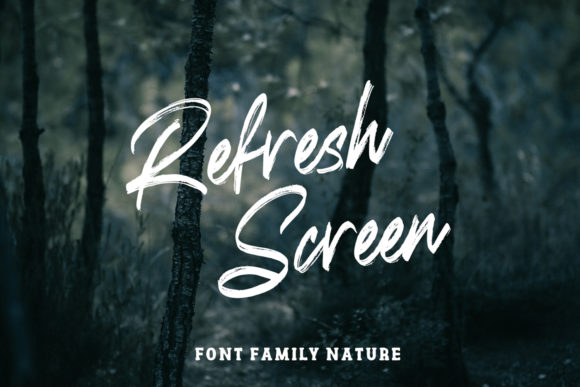
Dive into the world of Refresh Screen Font, a calligraphy duo that will captivate your senses and transform your creative projects. Experience the magic as the elegant strokes of the hand brush font intertwine with the refined lines of its condensed counterpart. Let your imagination soar as you craft breathtaking wedding invitations, heartfelt quotes, and any design that calls for a touch of freshness and authenticity.
This font pair is meticulously crafted, offering a diverse range of styles to suit your every need. From casual to formal, playful to sophisticated, the Refresh Screen Font duo adapts seamlessly to your vision. Witness the harmony as the hand brush font dances across the page, leaving a trail of organic beauty, while its condensed partner adds a touch of grace and polish.
Step into a world where creativity knows no bounds. Let the Refresh Screen Font family inspire you to create stunning logos that command attention, captivating social media posts that engage your audience, and eye-catching marketing materials that leave a lasting impression. Its versatility extends to branding, packaging, and any project that demands a unique and memorable identity.
With Refresh Screen Font, you're not just downloading a font; you're embarking on a journey of artistic expression. Unleash your inner artist and watch as your designs come to life with a charm that resonates with your audience. Embrace the power of authentic typography and let your creativity shine.